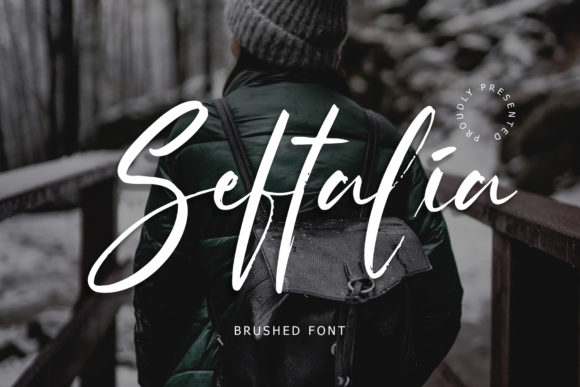
Step into the world of sophistication and grace with Seftalia Font, a mesmerizing script font that's anything but ordinary. Experience the allure of exquisite letterforms, crafted with the utmost precision and attention to detail. Seftalia's intricate strokes dance across the page, captivating your senses and leaving a trail of elegance in its wake.
With its effortlessly stylish appearance, Seftalia is the perfect choice for adding a touch of refinement to any project. From stunning wedding invitations and heartfelt love letters to eye-catching branding and captivating social media posts, Seftalia adapts seamlessly to your creative vision.
Fall under the spell of Seftalia's versatility and watch as it transforms your words into works of art. Its graceful letterforms harmonize perfectly with a wide range of designs, from classic and timeless to modern and edgy. Let Seftalia be your muse as you embark on a creative journey, creating designs that leave a lasting impression.
But Seftalia is more than just a beautiful font; it's an extension of your unique style and personality. With its ability to convey a myriad of emotions, from joy and excitement to love and longing, Seftalia allows you to express yourself in ways that ordinary fonts simply cannot.
So, why settle for ordinary when you can embrace the extraordinary? Dive into the world of Seftalia Font and unlock the gateway to design possibilities. Let its charm and sophistication elevate your projects to new heights and leave your audience in awe. Seftalia awaits you – seize the moment and let your creativity flourish!